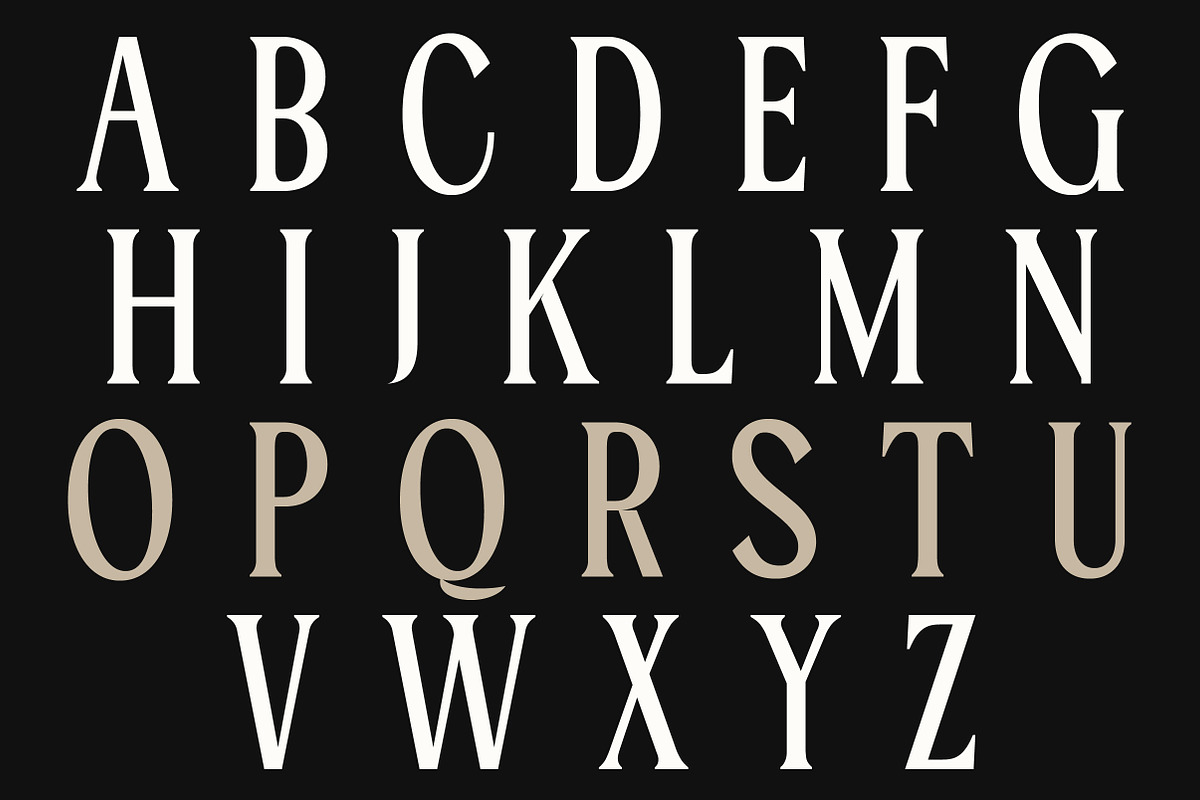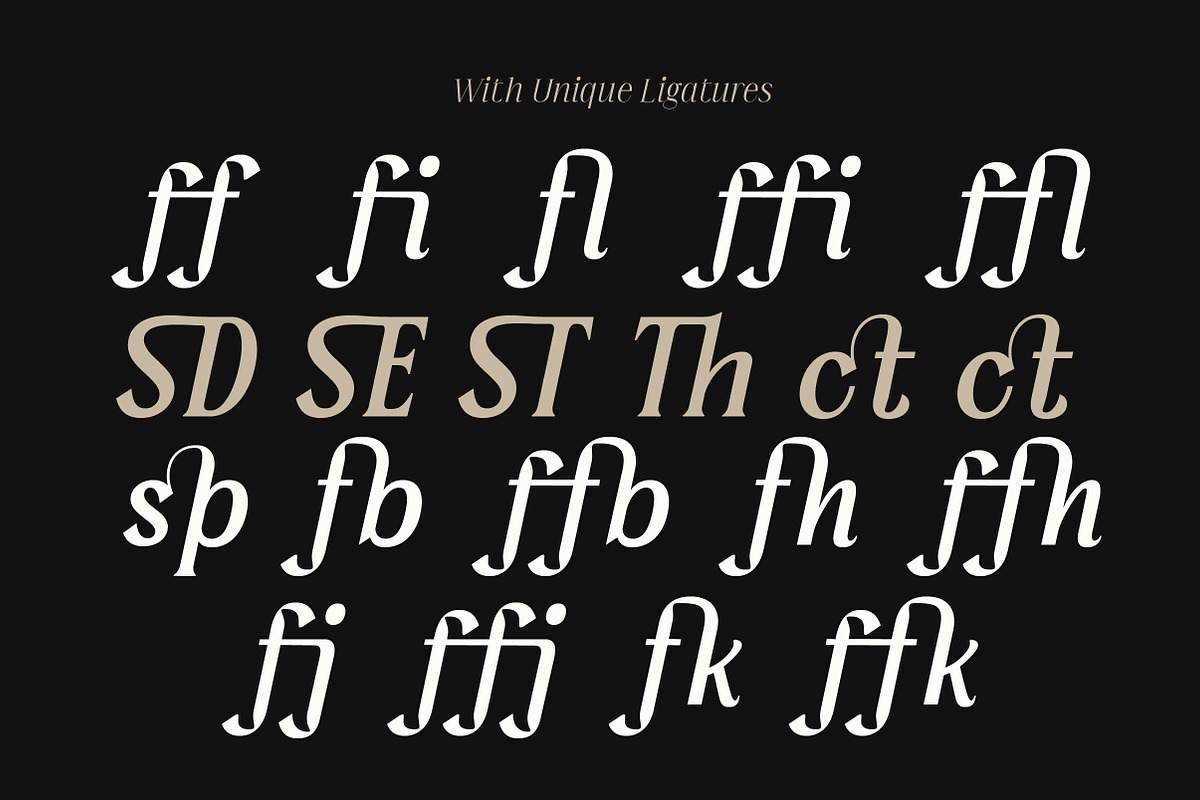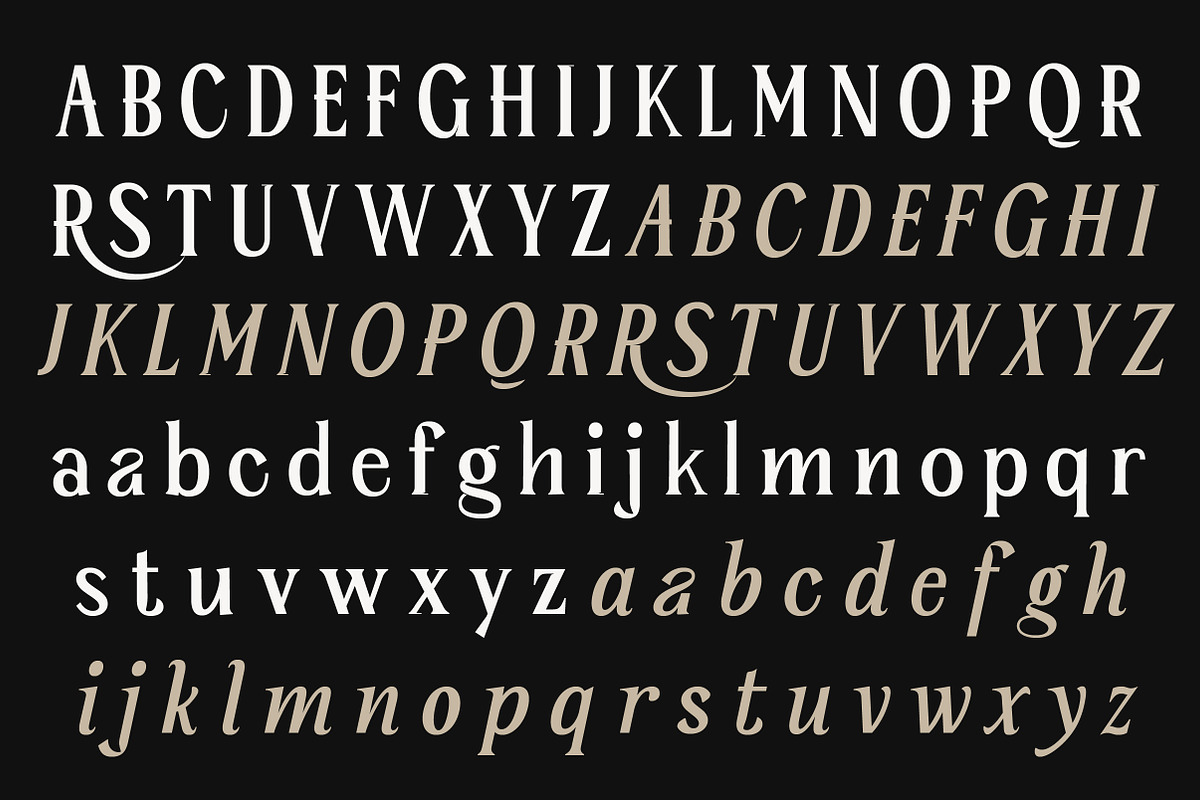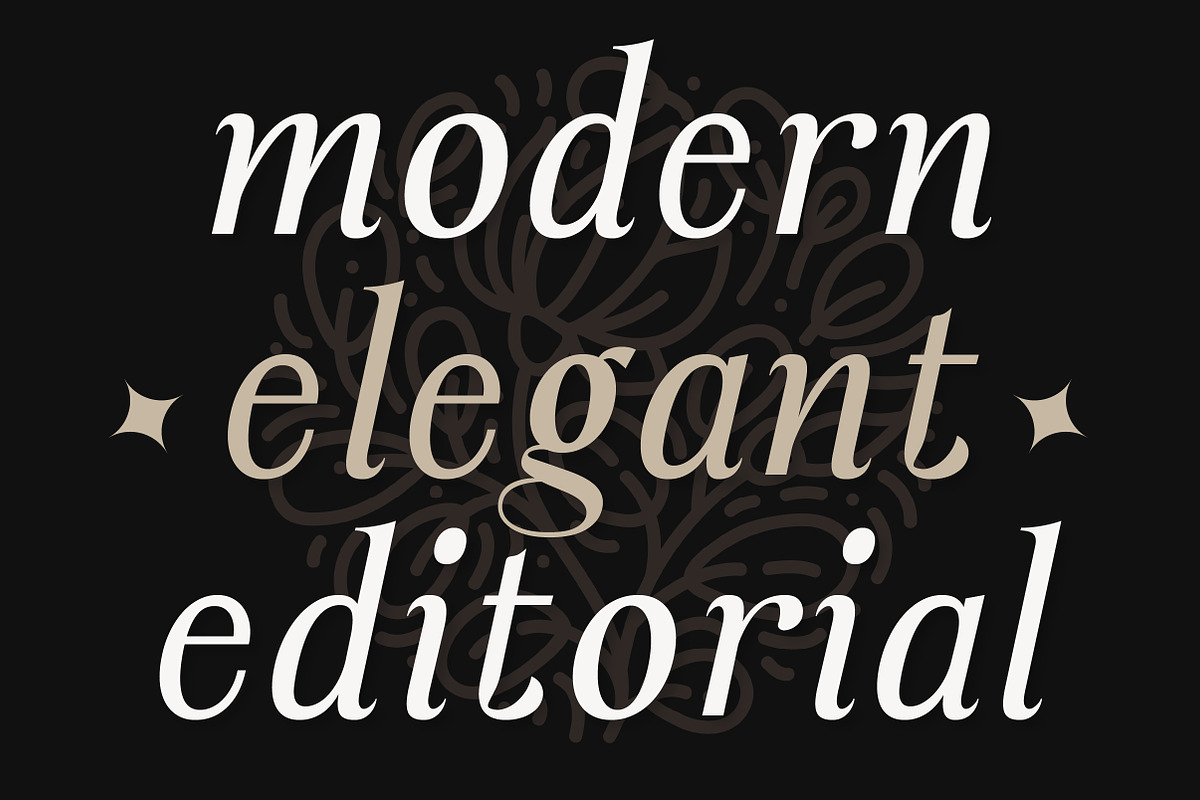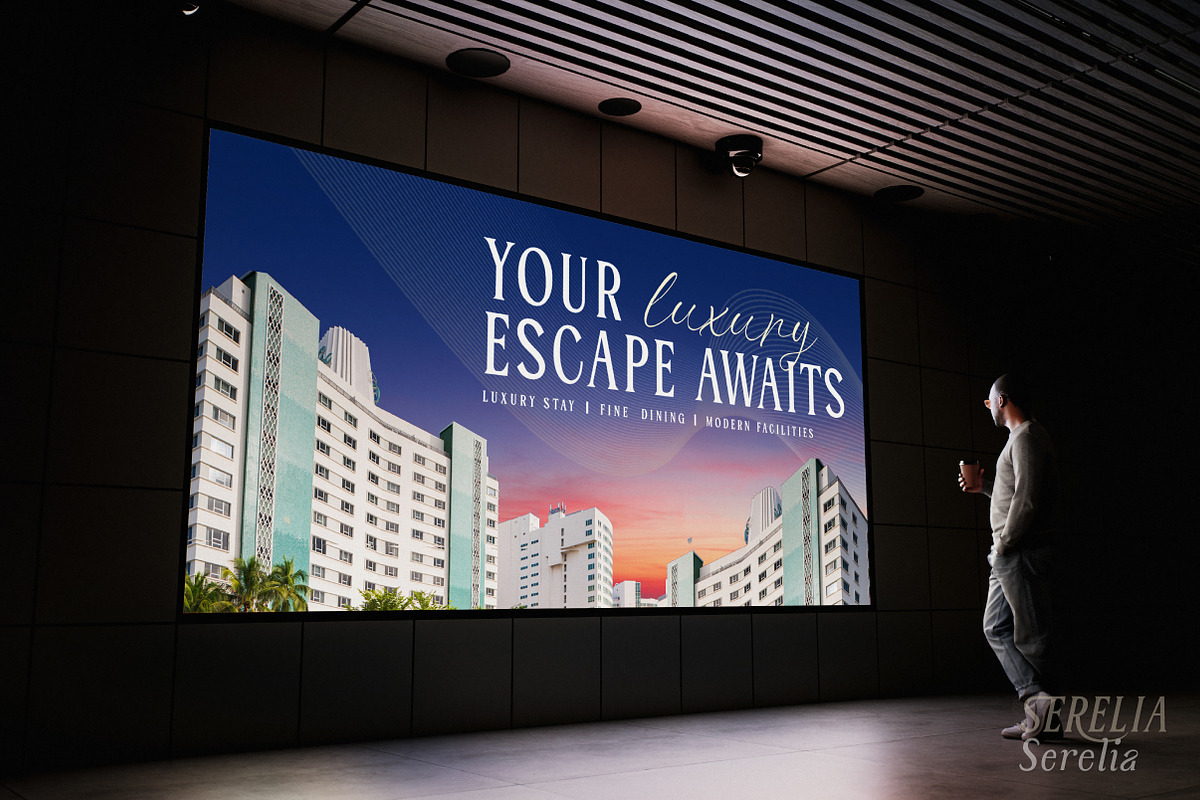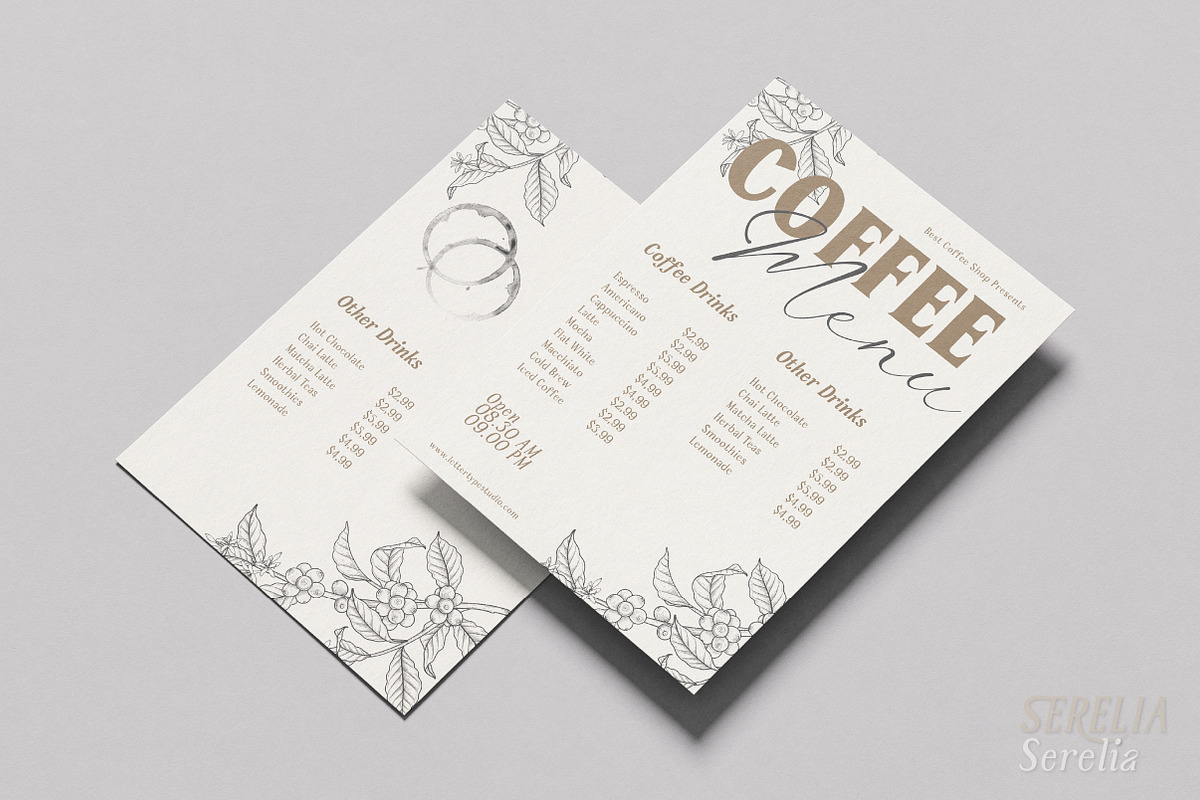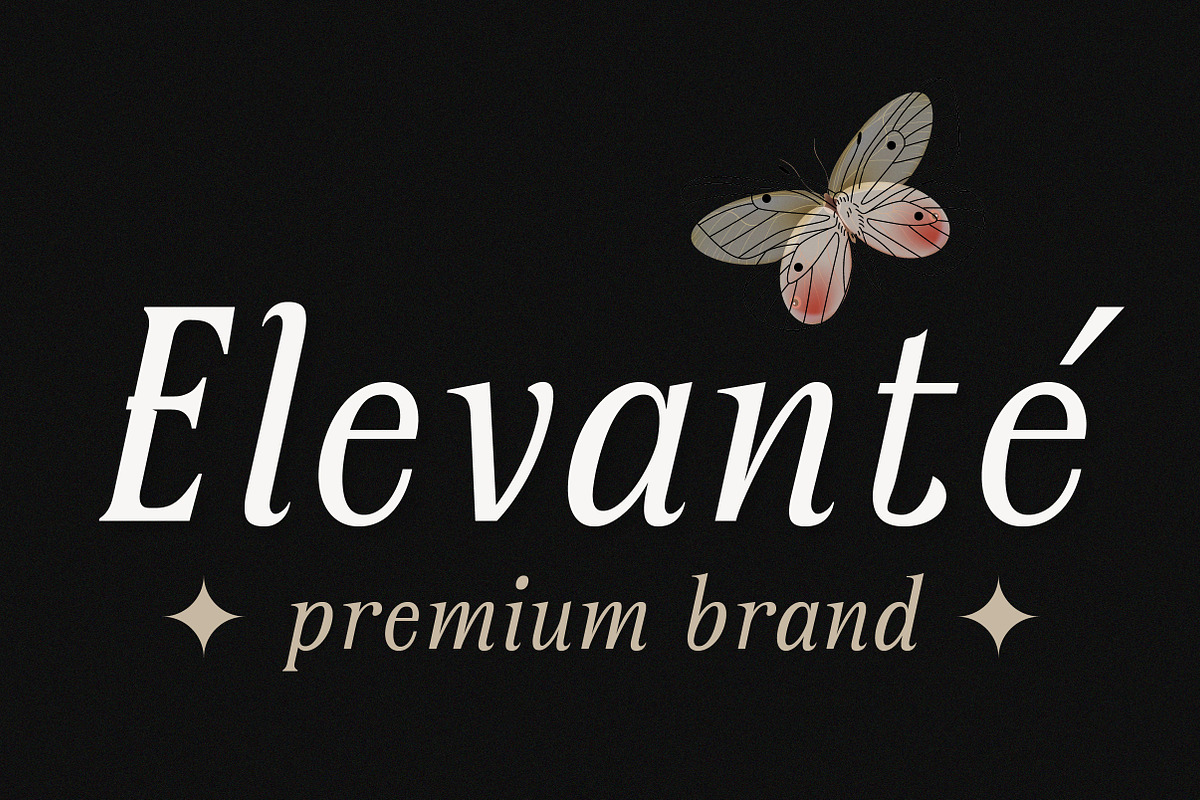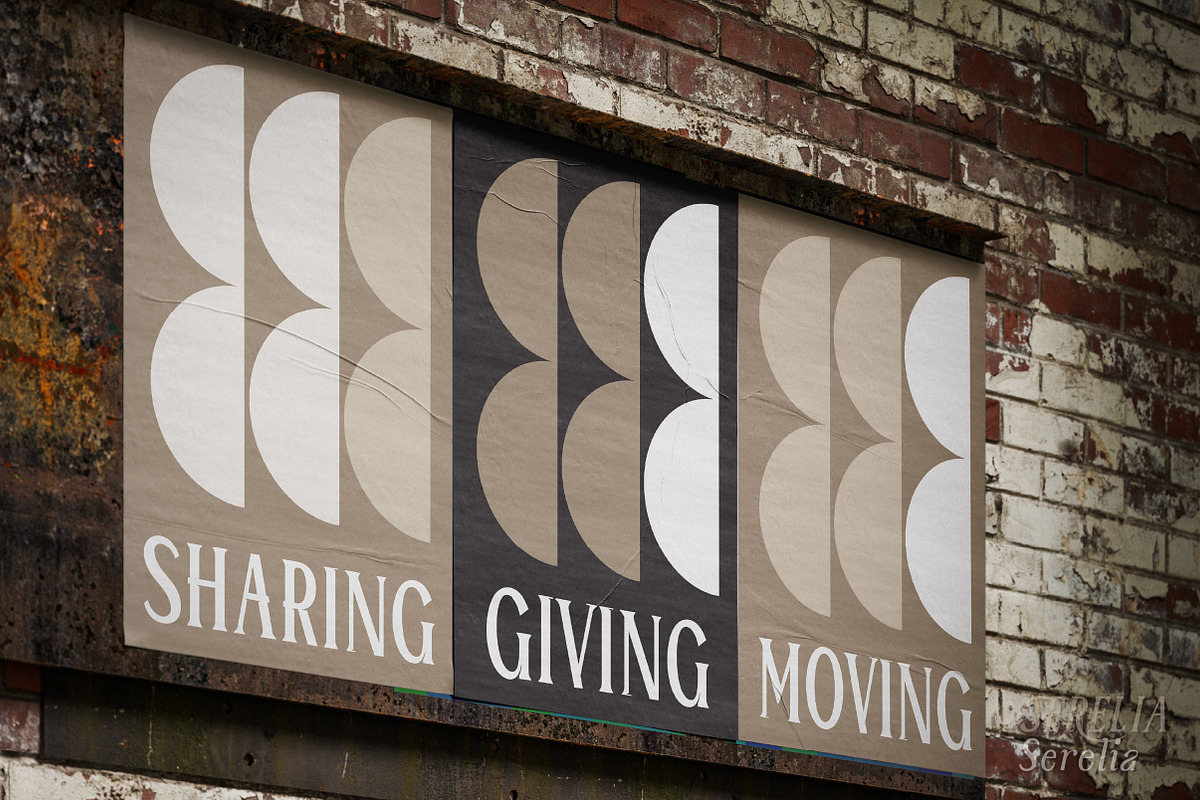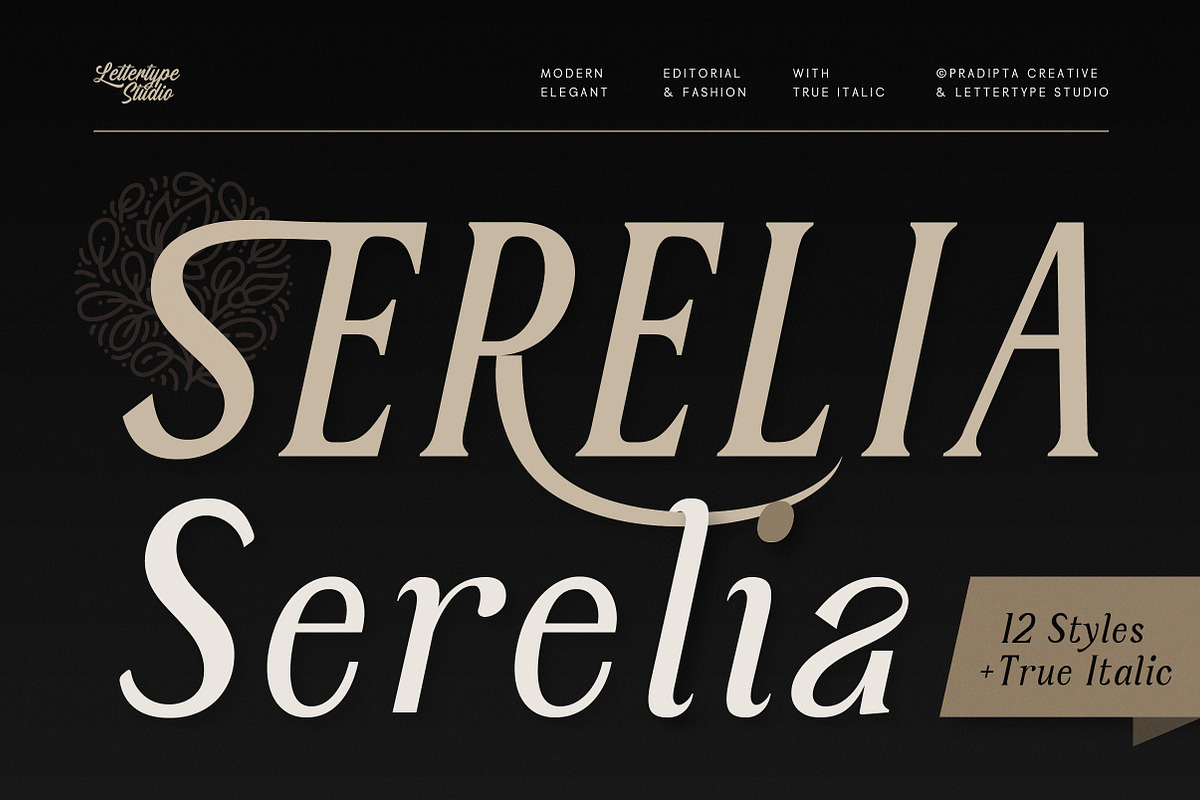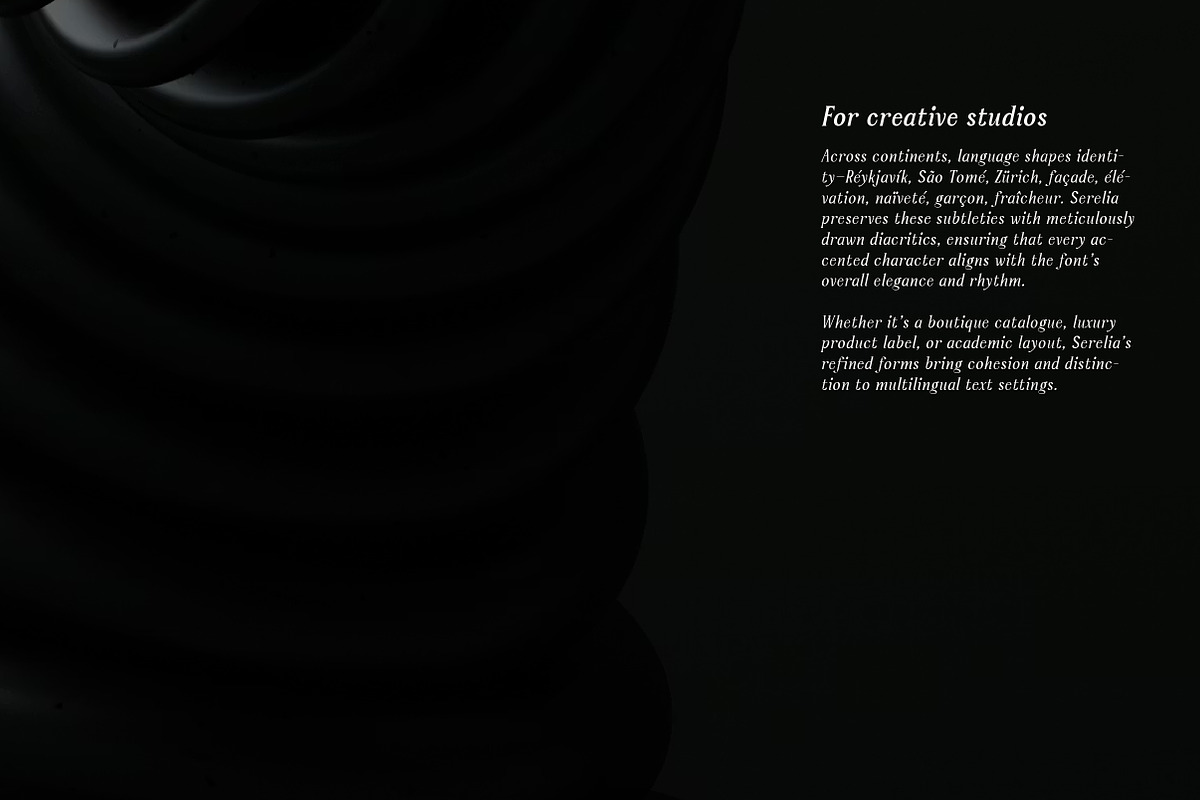
Serelia is a refined editorial serif crafted with graceful contrast, elegant curves, and expressive signature details designed for premium branding. Its upright styles blend modern precision with classic warmth, enhanced by a wide collection of stylistic alternates across A–Z, a–z, including double-story “a”, luxury ampersand sets, and the iconic R-signature shape. Key ligatures like CA, CE, CI, CO, CU, CH, CC, CQ, AA, EE, FF, GG, OO, QQ, SD, SE, SS, TT, and LA deliver a distinctive, editorial personality in every layout.
With 12 total styles (6 Upright + 6 True Italic), Serelia offers deep typographic versatility — from bold headlines to delicate subheadings. Additional OpenType features, multilingual Latin support, and optimized screen rendering (TTF/WOFF/WOFF2) make it fully ready for both print and digital environments. Serelia is made for designers who want elegance, flexibility, and statement-making letterforms.
Serelia Features:
- 12 Styles total (6 Upright + 6 True Italic)
- Regular & True Italic
- 54 Alternates & 31 Unique Ligatures
- 523 Glyphs Total
- 260+ Languages Support
- Luxury Branding
- Editorial Headlines & Magazines
- High-End Packaging Design
- Creative Agency Identity Systems
- Logo & Title Typography